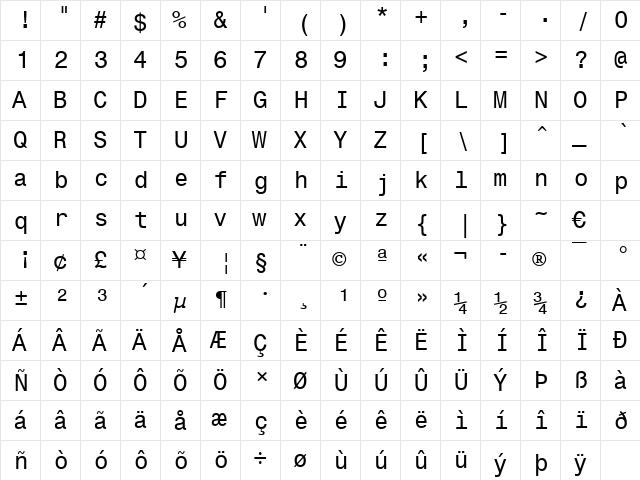
Monospac821 WGL4 BT Roman
Design Context for Monospac821 WGL4 BT Typeface
Monospac821 WGL4 BT brings the precise, column-aligned rhythm of monospaced typography to designs that value technical clarity and systematic order.